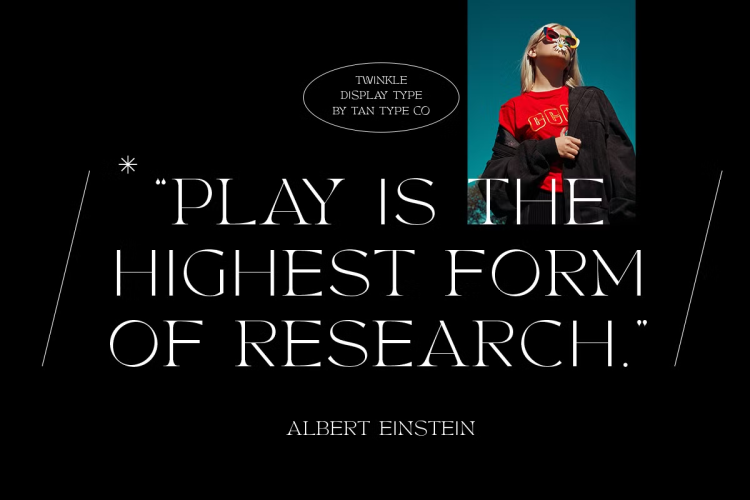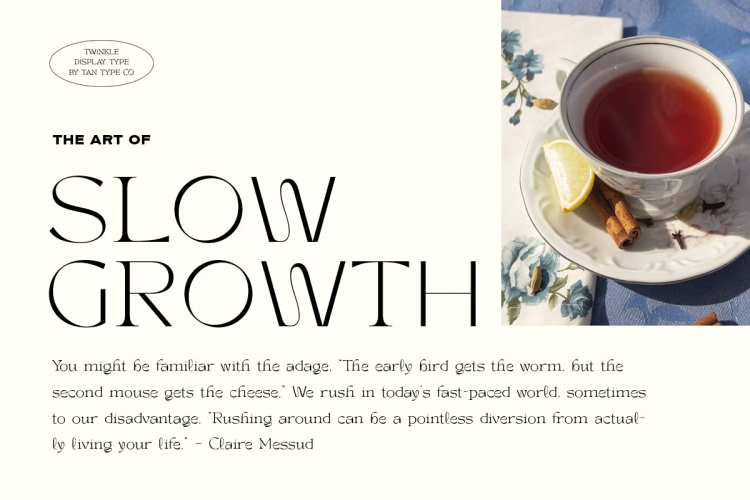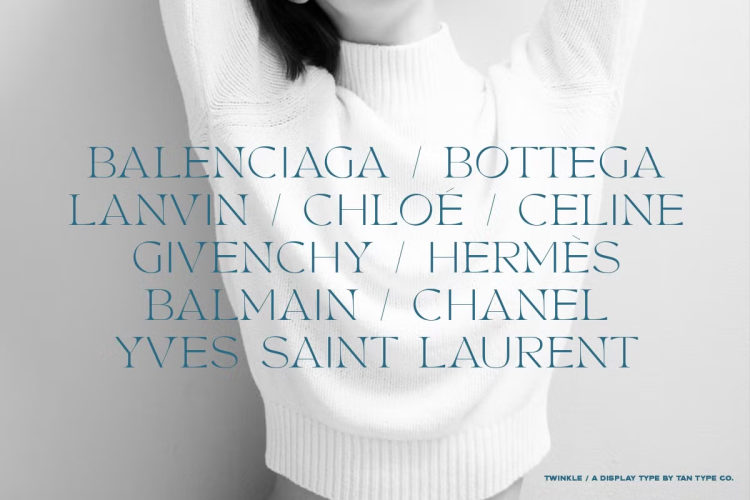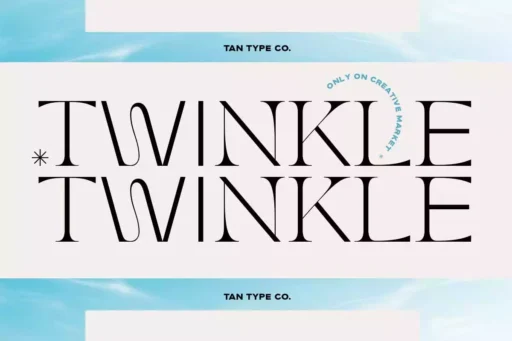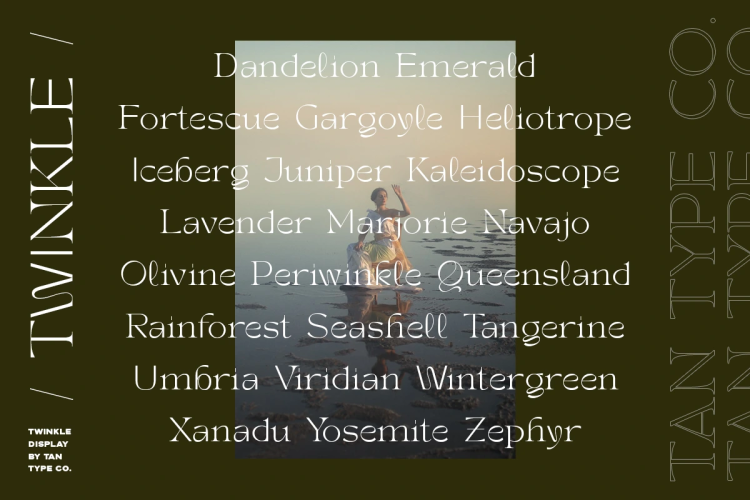
TAN TWINKLE Font
TAN TWINKLE is a decoration font designed by TanType Co which shapes the styles of serif and sans serif in a perfect way to give a new and soft look. This is a perfect mix of both the sans-serif fonts and serifs, creating a modern and yet having that class feel of serif fonts.
It has a clean design and smooth form, as well as delicate elements that will be helpful in creating a professional and elegant look of your project. TAN TWINKLE is perfect for branding, logos, titles, packaging, editorial designs and social media posts among other uses. The essence of the style can be beneficial in the fashion, beauty, lifestyle, and luxury brands industries.
TAN TWINKLE contains a full complement of the uppercase and lowercase letters, numerals, and punctuation marks and supports multiple languages.
TAN TWINKLE Font is a Serif Fonts font that brings a professional and versatile look to your projects. TAN TWINKLE is a decoration font designed by TanType Co which shapes the styles of serif and sans serif in a perfect way to give a new and soft look.